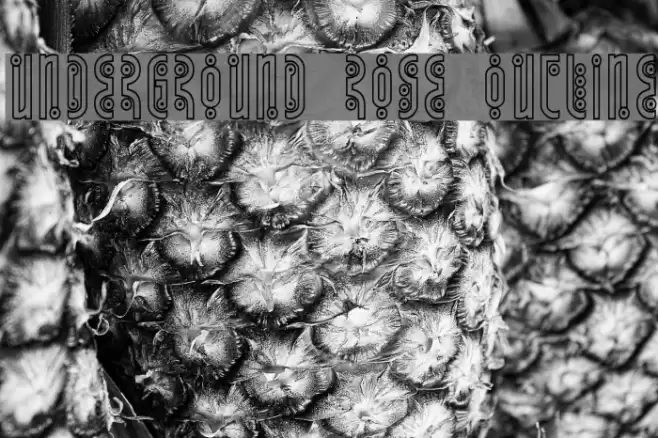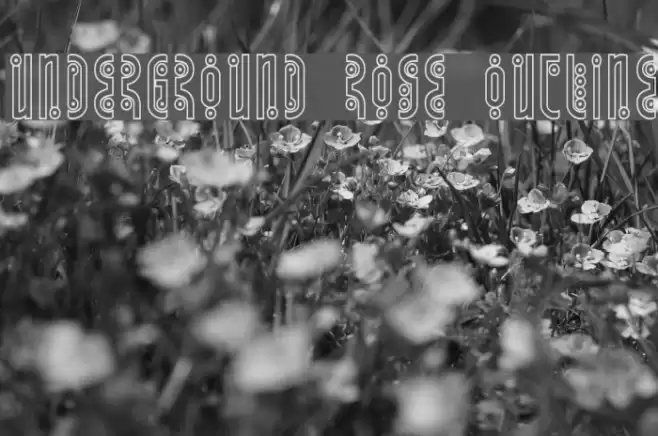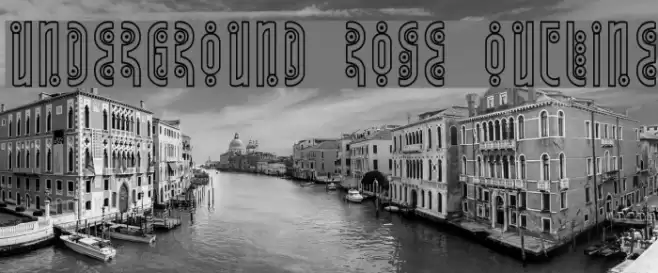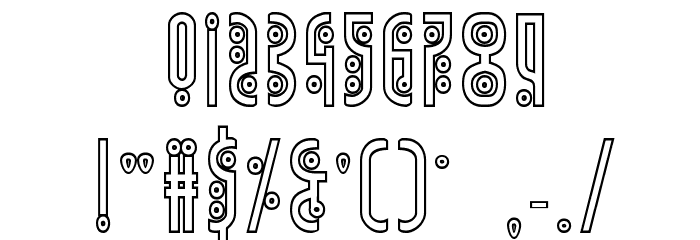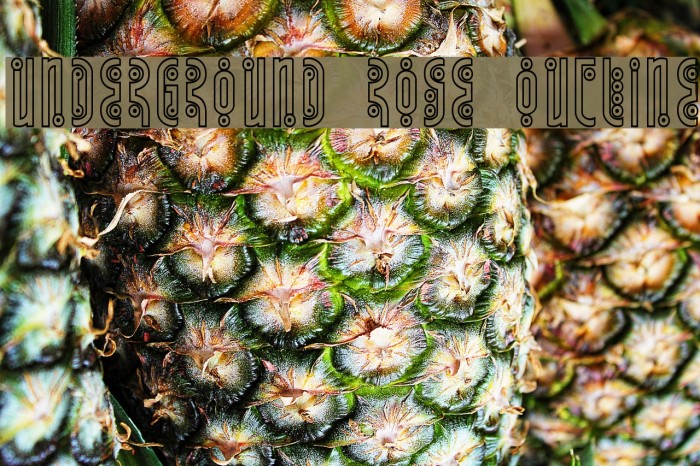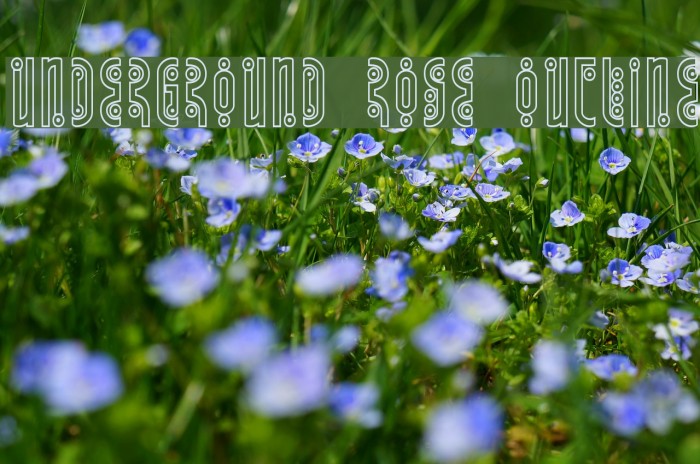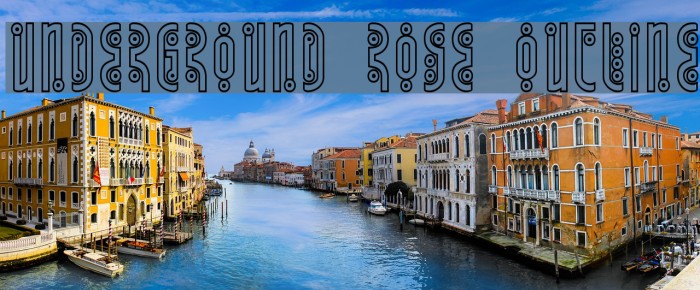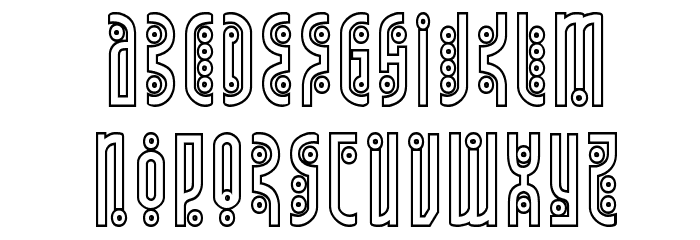
Underground Rose Outline Font
Underground Rose Outline Description
This font features a unique and artistic outline style with a futuristic and geometric aesthetic. Each character is crafted with intricate circular and linear elements that create a sense of depth and dimension. The uppercase and lowercase letters maintain a consistent design theme, with bold outlines and decorative inner details that resemble circuitry or mechanical components. The numbers and special characters are equally stylized, ensuring a cohesive look across all elements. This font's distinct appearance makes it ideal for projects that require a modern and edgy feel.
A futuristic outline font with geometric and decorative elements from Uncategorized fonts.
- Proposed Projects: Ideal for sci-fi themed designs, tech branding, posters, and digital artwork.